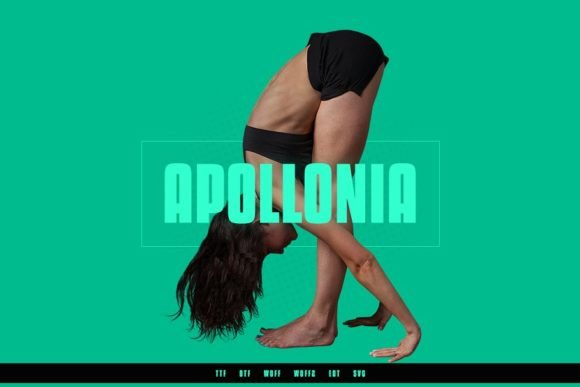
Enter the Apollonia Pro Font, a bold and simple sans serif font that’s designed to elevate your creative ideas. With its clean lines and modern feel, Apollonia Pro is the perfect addition to any project. Whether you’re a seasoned designer or just starting out, this font is sure to help you stand out from the crowd.
For designers, Apollonia Pro Font is a valuable tool that can help you communicate complex ideas with clarity and style. Its versatility makes it suitable for a wide range of applications, from digital interfaces to print materials. By incorporating Apollonia Pro into your design arsenal, you’ll be able to bring your creative vision to life in a way that’s both beautiful and effective.
Apollonia Pro Font Key Features
- Unique Characteristics: This font features a unique blend of modern and classical elements, with a focus on elegance and sophistication.
- Font Style: The font comes in 6 different styles, including Regular, Italic, Bold, Bold Italic, Condensed, and Condensed Italic, offering versatility and flexibility.
Designer Review: Apollonia Pro Font
First impressions count, and Apollonia Pro font made a statement right from the start. I was immediately drawn to its elegant and refined aesthetic ✨. The subtle curves and refined lines give the font a sophisticated feel that’s perfect for luxury brands, high-end products, or any project that demands a touch of sophistication.
The font’s versatility is another standout feature ✨. With 12 styles to choose from, you can use Apollonia Pro for a wide range of applications, from headlines and titles to body text and even logos. The font’s legibility is excellent, making it easy to read even in smaller sizes.
Limits and Areas for Improvement
While Apollonia Pro is an excellent font, there are a few areas where it falls short ⚠️. The font’s weight range could be more extensive, particularly at the lighter end. Additionally, some users may find the font’s x-height a bit too large, which can make it appear slightly too bold in certain contexts.
Despite its limitations, Apollonia Pro is a fantastic font that’s sure to elevate any design project ✨. Its elegant aesthetic, versatility, and excellent legibility make it a great choice for designers looking to create sophisticated and refined designs.
Recommendation
- Use Apollonia Pro for luxury brands, high-end products, or any project that demands a touch of sophistication.
- Pair Apollonia Pro with a clean and simple layout to maximize its impact.
- Be mindful of the font’s weight range and x-height when using it in smaller sizes or for body text.
Tips for Getting the Most Out of Apollonia Pro
1. Use Apollonia Pro for headings and titles to create a clear visual hierarchy.
2. Pair Apollonia Pro with other fonts to create a unique and visually appealing combination.
3. Experiment with different font sizes and styles to add emphasis and create visual interest.
1. Brochures and flyers: Use Apollonia Pro for headings and titles to create a modern and professional look.